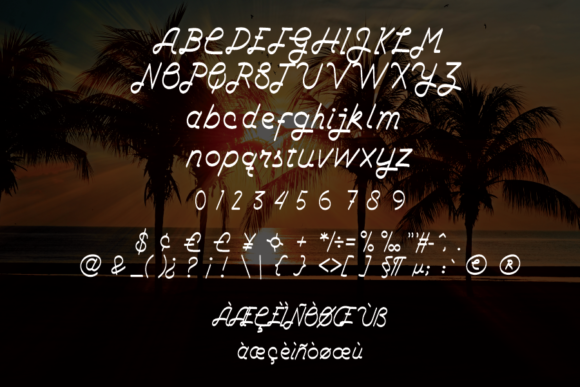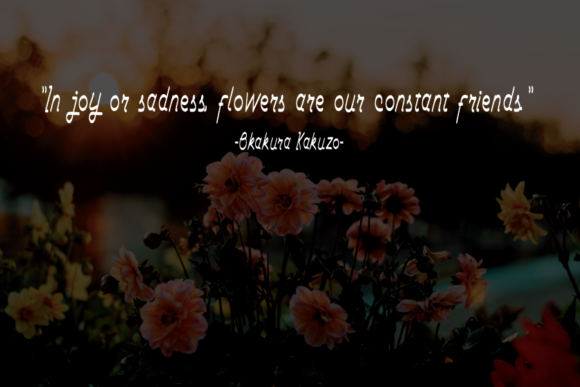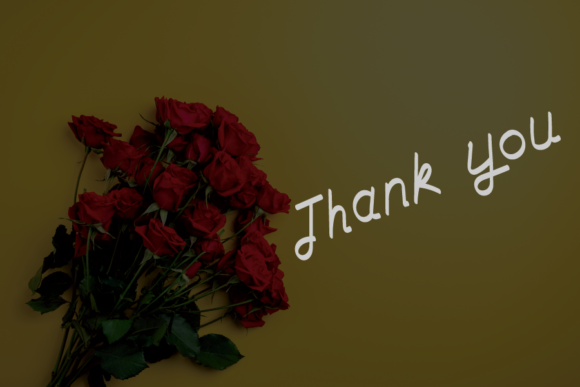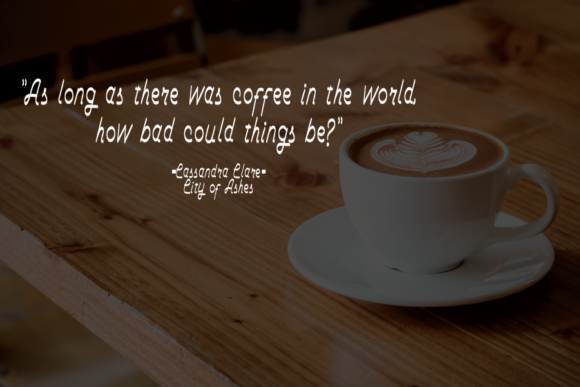
Summer Font
About Summer Font
Summer is a sweet and cursive script font that exudes elegance and charm. With its well-balanced characters and smooth curves, this font is ideal for fashion branding or editorial designs. Add it to your projects with confidence, and you will be delighted with the results.
The sweetness of Summer is evident in its graceful and flowing letterforms. The font’s cursive style adds a touch of sophistication and femininity to your designs. It captures attention and evokes a sense of beauty and grace, making it a perfect choice for fashion-related projects.
Summer’s well-balanced characters ensure that each letter seamlessly connects, creating a harmonious and visually pleasing composition. The smooth curves and gentle strokes contribute to the font’s elegance and readability. It maintains legibility while still adding a touch of artistic flair to your designs.
Fashion branding and editorial designs benefit greatly from Summer’s stylish and cursive script. Whether you’re working on a clothing brand, fashion magazine, or any other fashion-related project, this font elevates the overall aesthetic. It adds a sense of sophistication and allure, making your designs visually captivating and appealing to the target audience.
The versatility of Summer allows it to be used in various creative projects. From logos and branding materials to editorial layouts and social media graphics, this font adds a touch of elegance and refinement. Its smooth curves and well-balanced characters create a cohesive and visually pleasing design language.
By incorporating Summer into your projects, you infuse them with a sense of beauty and sophistication. The font’s sweet and cursive style enhances the overall aesthetic, capturing the essence of fashion and elegance. Add it confidently to your designs, and watch as it transforms them into visually stunning and captivating creations.
In summary, Summer is a sweet and cursive script font that adds elegance and charm to your projects. Its well-balanced characters and smooth curves create a visually pleasing composition. Whether used in fashion branding or editorial designs, this font enhances the overall aesthetic with its stylish and graceful nature. Embrace the beauty of Summer and add it confidently to your projects, experiencing the delightful results it brings to your designs.